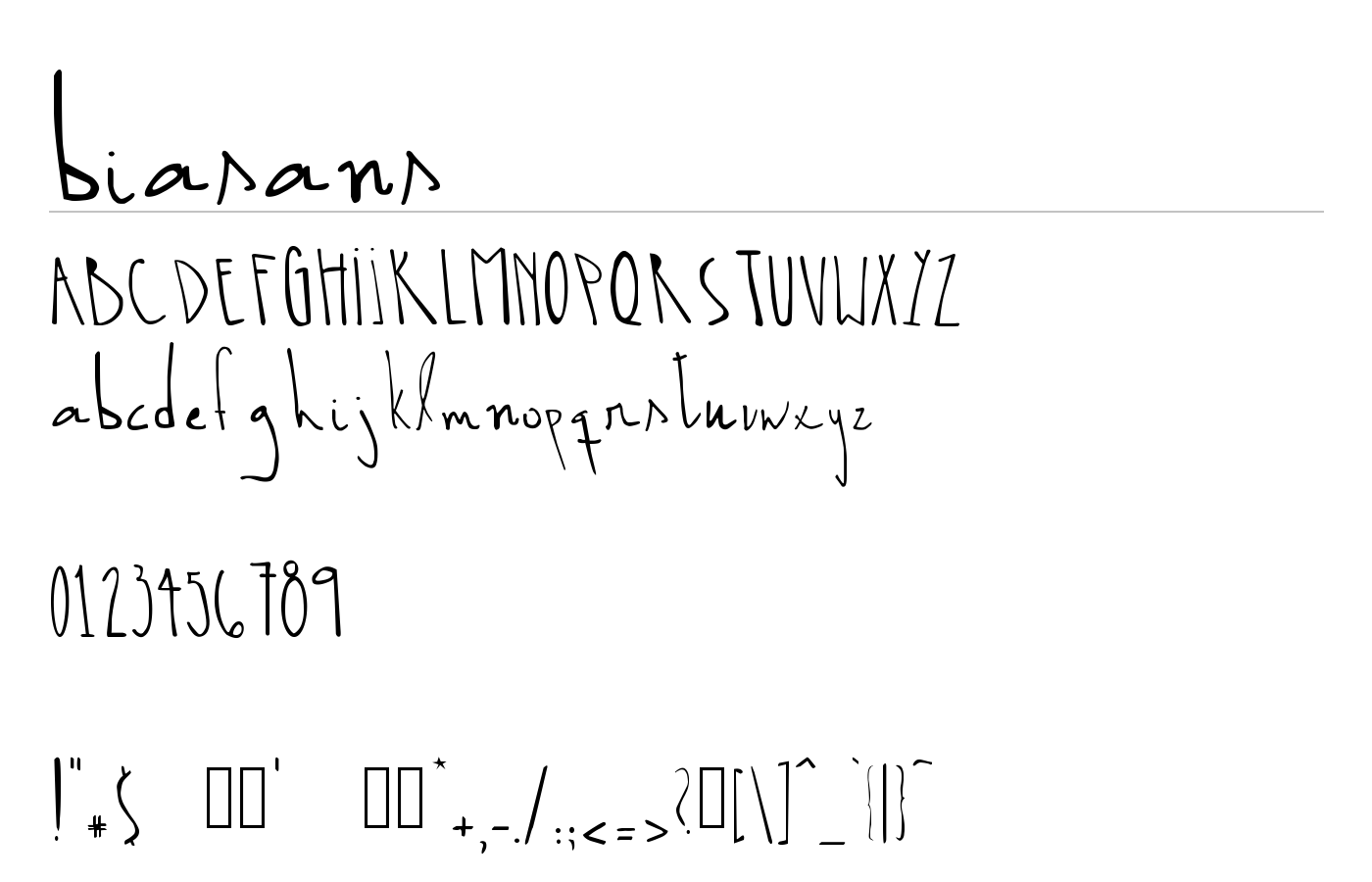
Biasans is a playful, handwritten sans-serif font featuring tall, narrow letterforms with a quirky, casual charm. Its thin, uneven strokes and whimsical shapes give it a light, informal feel that works well for creative projects, children’s designs, and laid-back branding. This font is ideal for adding personality to invitations, posters, and artistic headlines where a unique, friendly style is desired.
biasans Font